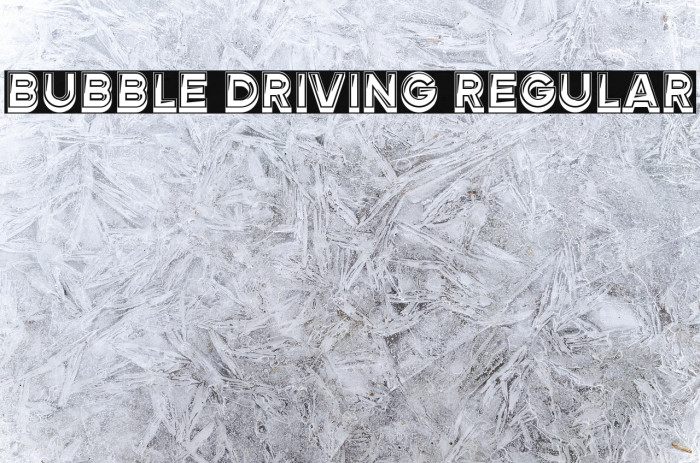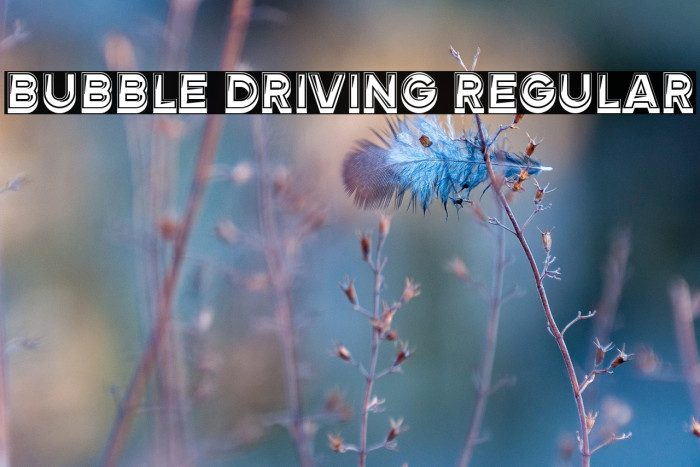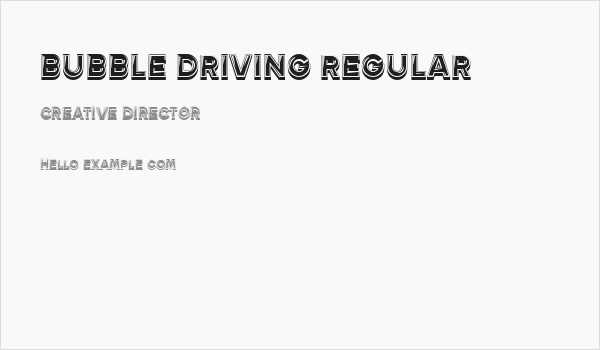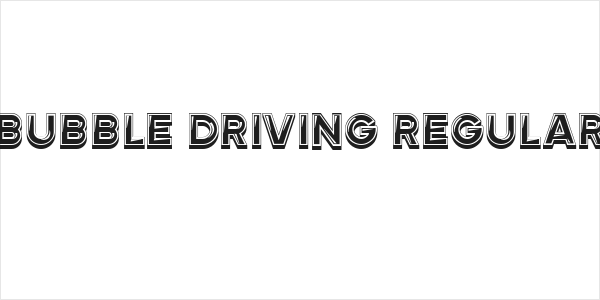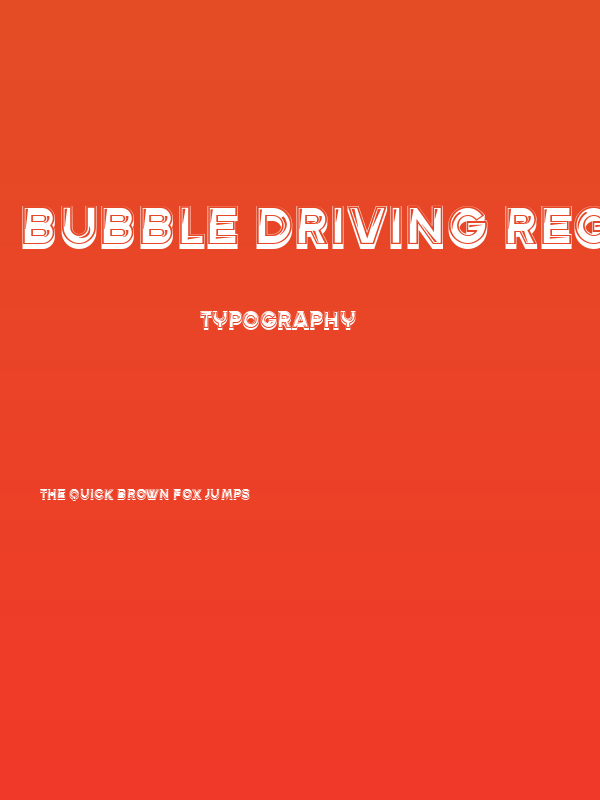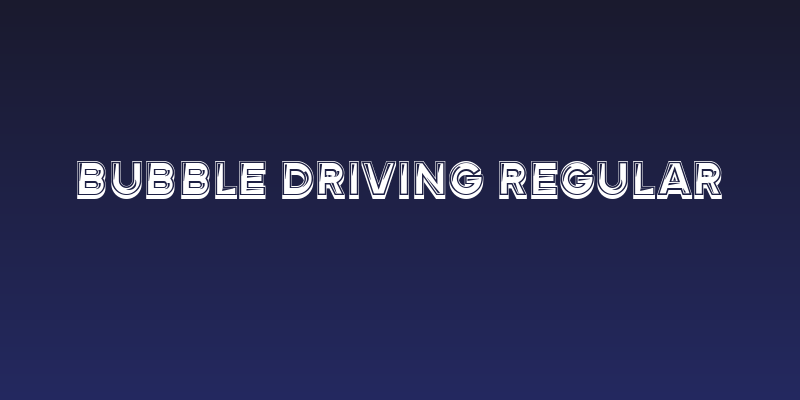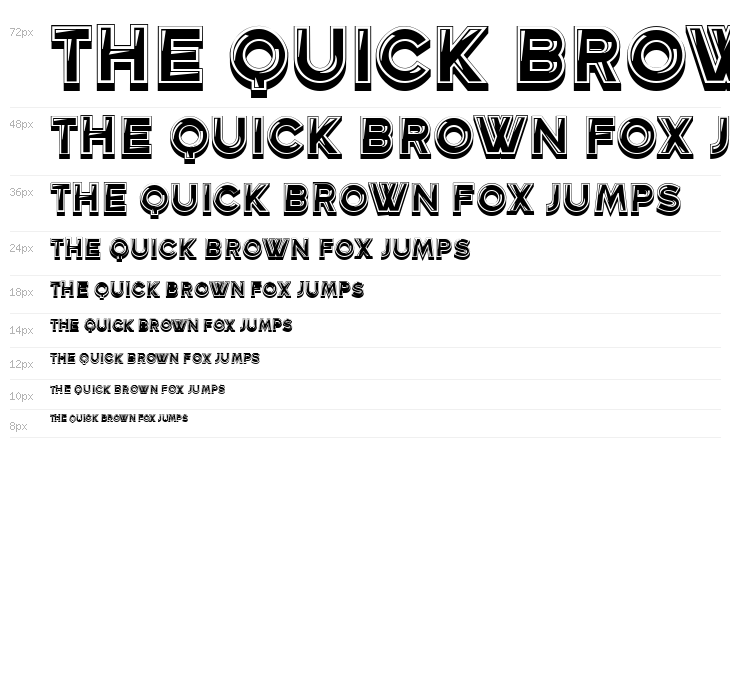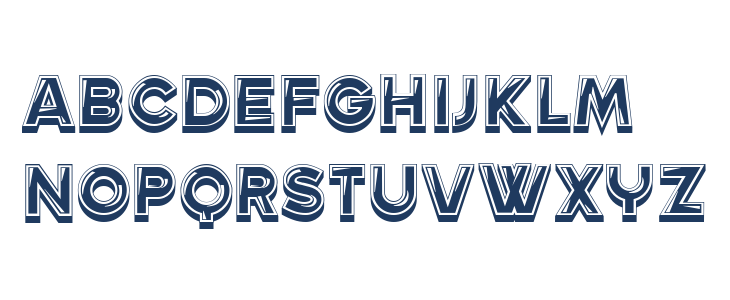
Bubble Driving Regular Font
Bubble Driving Regular Description
This font features bold, three-dimensional letters with a playful and dynamic appearance. The characters are outlined with a thick black border, creating a striking contrast against the white inner space. The design incorporates a shadow effect, giving the letters a sense of depth and volume. The overall style is modern and eye-catching, making it suitable for projects that require a bold statement. The uppercase letters are uniform in height, and the spacing between characters is consistent, ensuring readability. The font's unique style makes it ideal for creative and fun applications.
| Proposed Projects | Ideal for posters, logos, headlines, and any design that requires a bold and playful touch. |